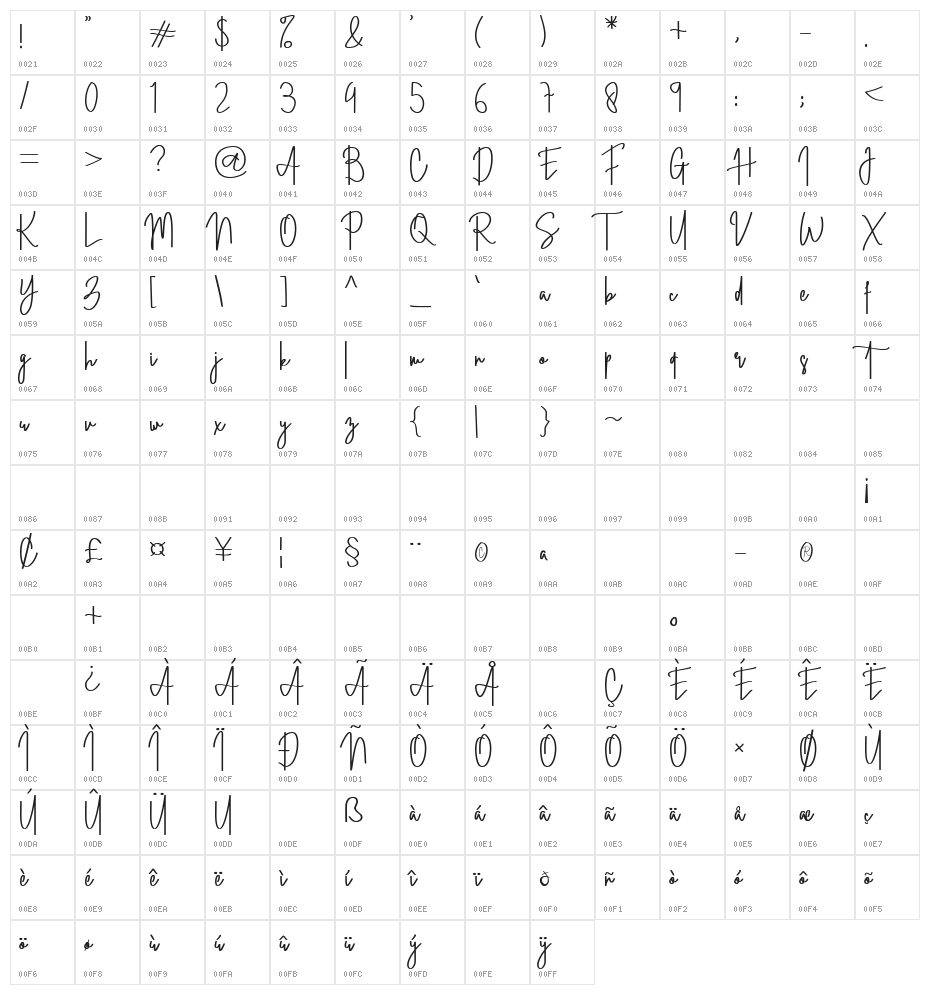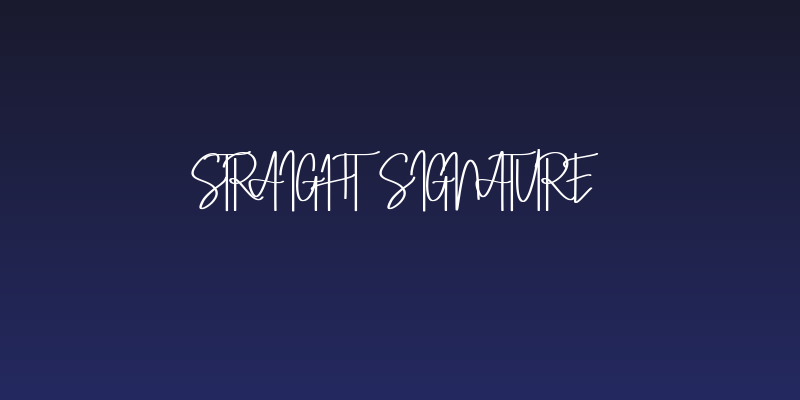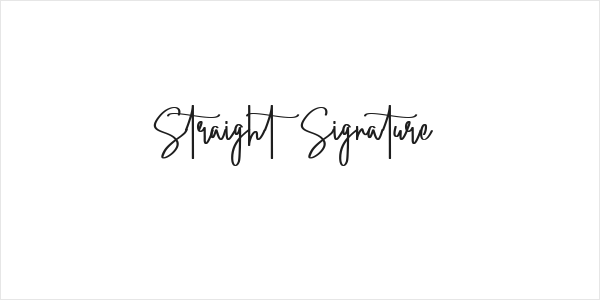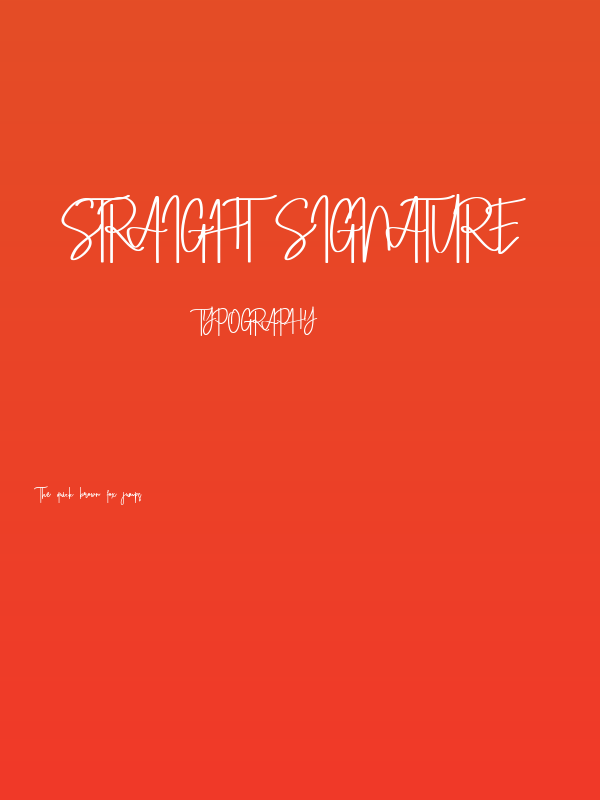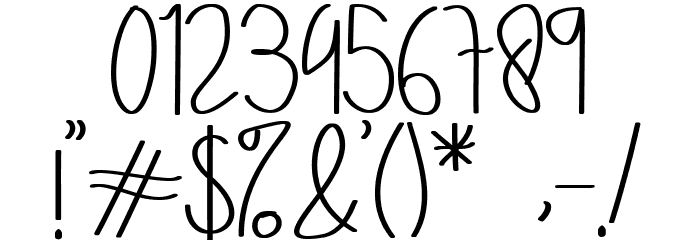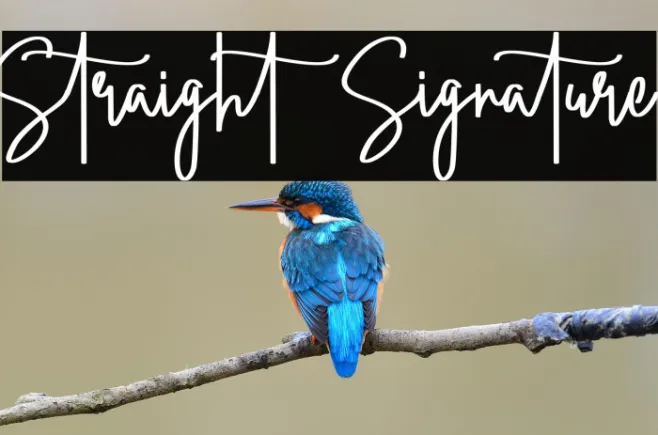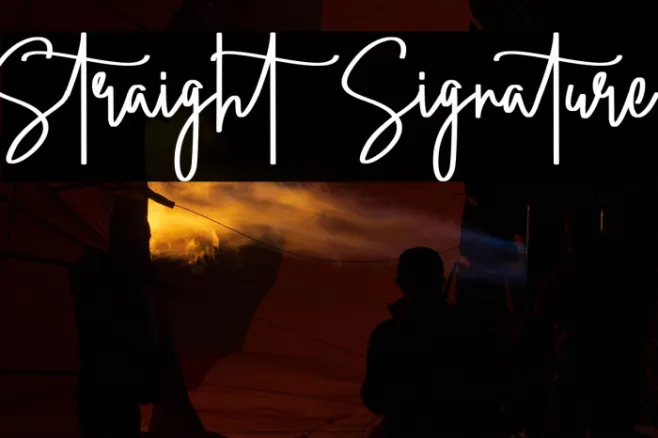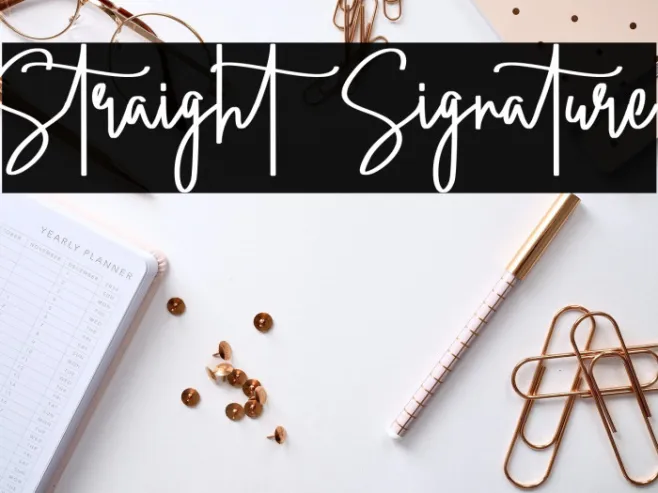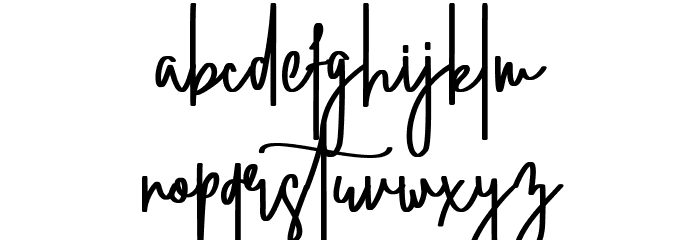
Straight Signature Font
Straight Signature Description
This font features a distinctive handwritten style with an elegant and flowing script. The uppercase letters are tall and narrow, with a playful yet sophisticated appearance. The lowercase letters maintain a consistent style, with smooth curves and loops that add a touch of whimsy. Numbers are clear and legible, matching the overall aesthetic. Special characters are creatively designed, fitting seamlessly with the rest of the font. The overall look is modern and stylish, making it suitable for a variety of creative projects.
| Use Case | Logos, Invitations, Social Media |
| Proposed Projects | Ideal for wedding invitations, personal branding, social media graphics, and creative logos. |